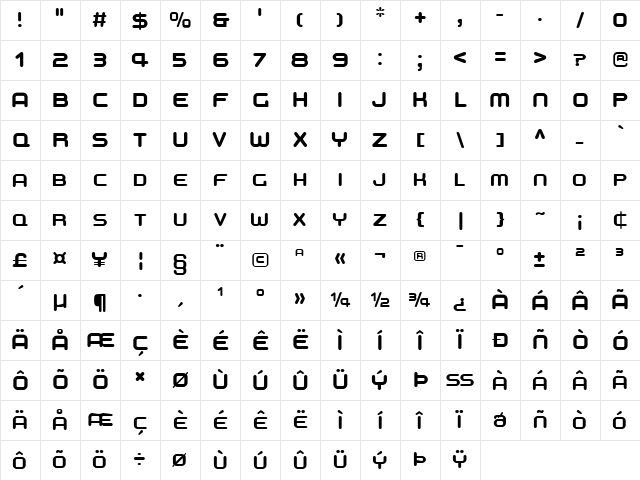
Damavand-Heavy & Free Font
Damavand-Heavy &
Style: &
Foundry: Naghi Naghashian
Designer: Naghi Naghashian
Design Context for Damavand-Heavy
Damavand-Heavy is a composed and adaptable typeface that performs quietly and consistently across a wide range of design contexts.